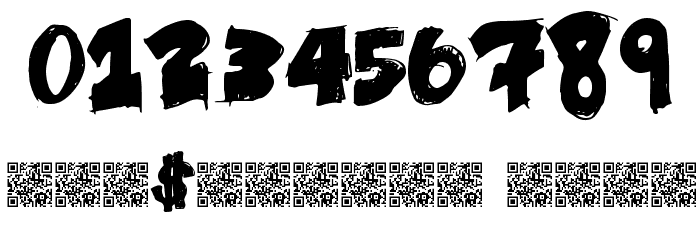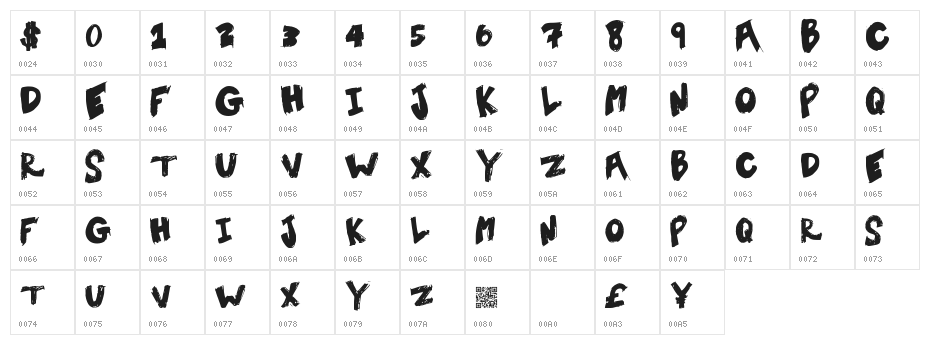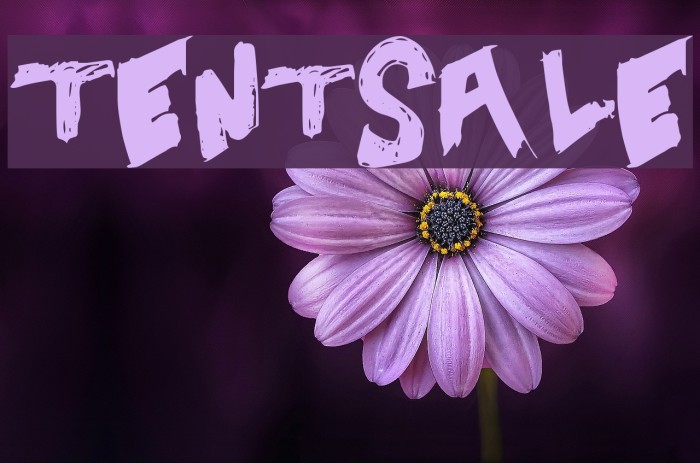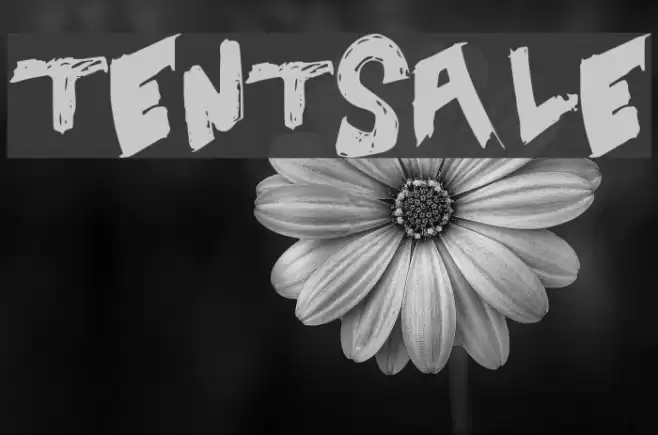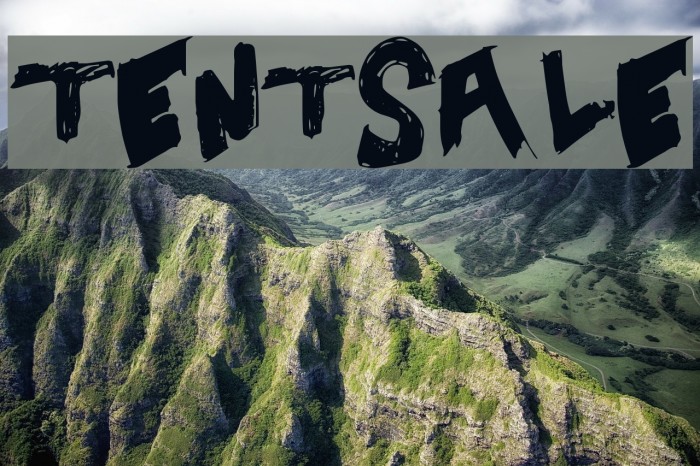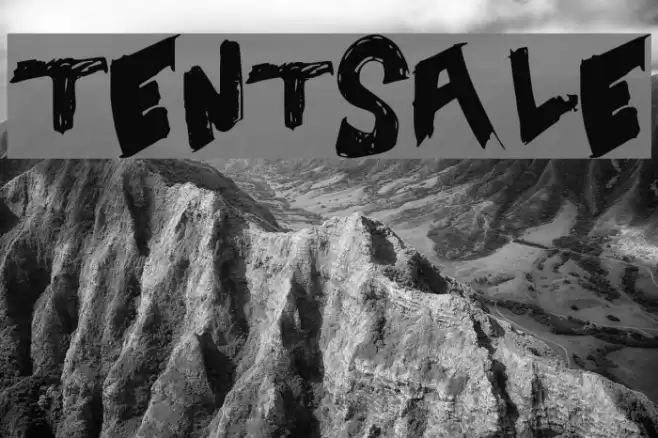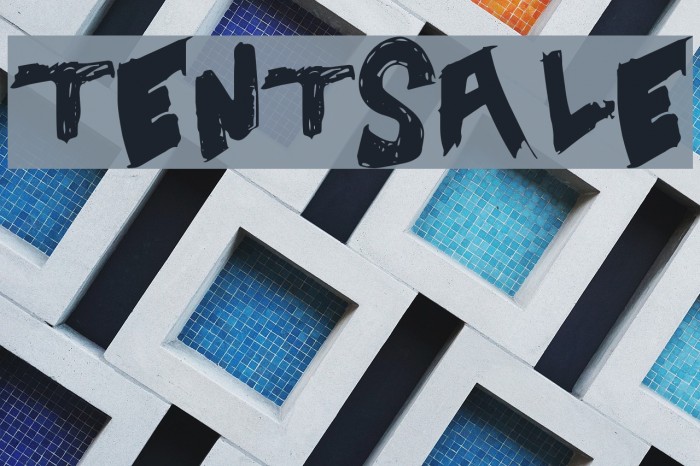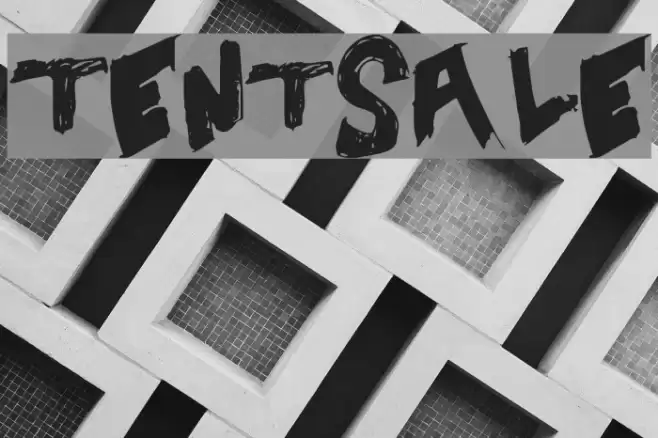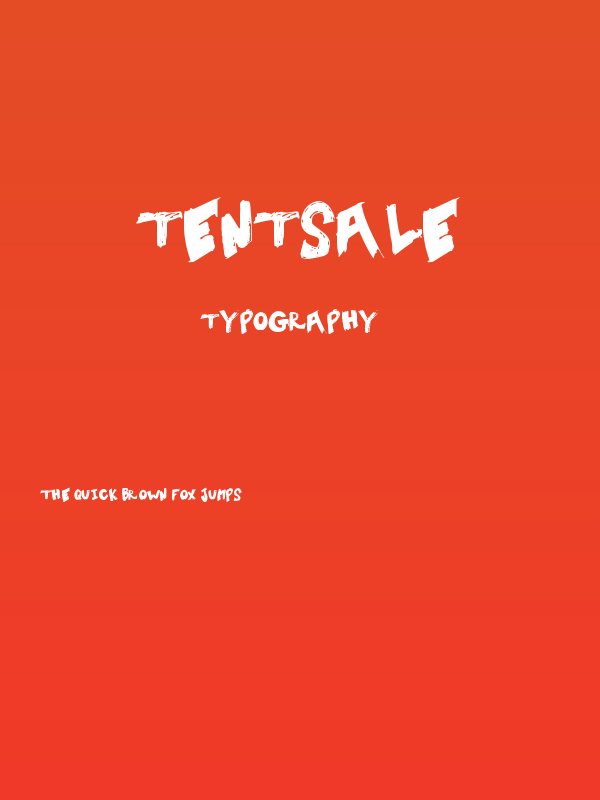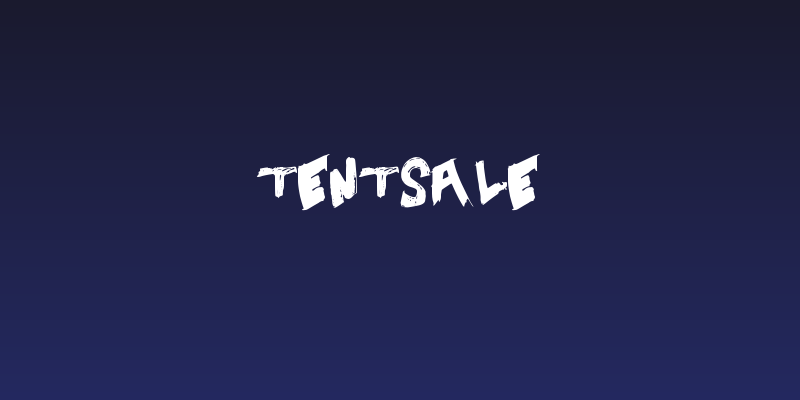
TentSale Font
TentSale Description
This font features a bold and dynamic brush style, characterized by its rough, textured edges that give it a hand-painted appearance. The letters are slightly irregular, adding a sense of movement and energy. The uppercase and lowercase characters maintain a consistent style, with a playful and artistic flair. The numbers and special characters follow the same design, ensuring a cohesive look across all elements. This font is ideal for projects that require a bold, eye-catching display with a creative touch.
Proposed ProjectsIdeal for posters, event flyers, branding for creative industries, and any project needing a bold, artistic touch.